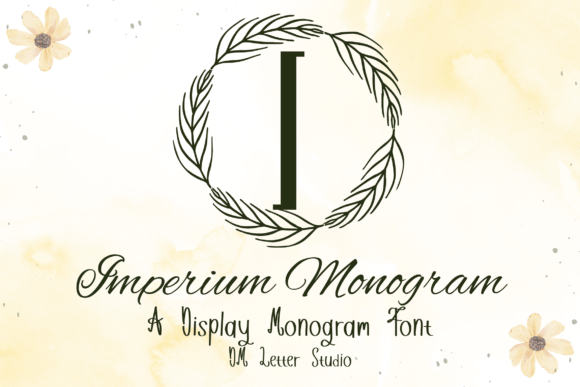
The Birth of a Timeless Design
As designers, we’ve all been there – staring at a blank canvas, searching for the perfect font to elevate our next project. The thrill of the hunt is exhilarating, but the pressure to create something truly special can be overwhelming. That’s where the Imperium Monogram Font comes in – a bold and stately serif monogram font designed to evoke timeless grandeur and noble sophistication.
Perfect for luxury branding, personalized gifts, wedding monograms, or boutique logos, the Imperium Monogram Font is built for creators who want their designs to feel powerful, elegant, and refined. With its classical Roman letterforms and clean, contemporary serif touch, this font is an ideal choice for designers who demand a sense of authority and grace in their work.
Imperium Monogram Font Key Features
- Font Family: A luxurious and elegant monogram font family, ideal for high-end branding and design projects.
- Unique Characteristics: Features intricate details, ornate flourishes, and luxurious textures, making it perfect for creating sophisticated and high-end designs.
Imperium Monogram Font Review
Overall, I think the Imperium Monogram Font is a great addition to any designer’s toolkit. Here’s what I like about it:
- ✨ Unique and stylish design: The font’s monogram-inspired design is both elegant and sophisticated, making it perfect for high-end branding projects.
- ✨ High-quality vectors: The font’s vector files are crisp and clean, ensuring that it will look great at any size or resolution.
- ✨ Easy to customize: The font is highly customizable, allowing designers to easily adjust the size, color, and spacing of the letters to fit their specific needs.
- ⚠️ Limited character set: The font only includes a limited set of characters, which may not be sufficient for some design projects.
- ⚠️ Not suitable for body text: Due to its ornate design, the font may not be the best choice for large blocks of body text.
Overall, I would recommend the Imperium Monogram Font to designers who are looking for a unique and stylish font for their high-end branding projects. While it may not be suitable for every design project, it’s a great addition to any designer’s toolkit.